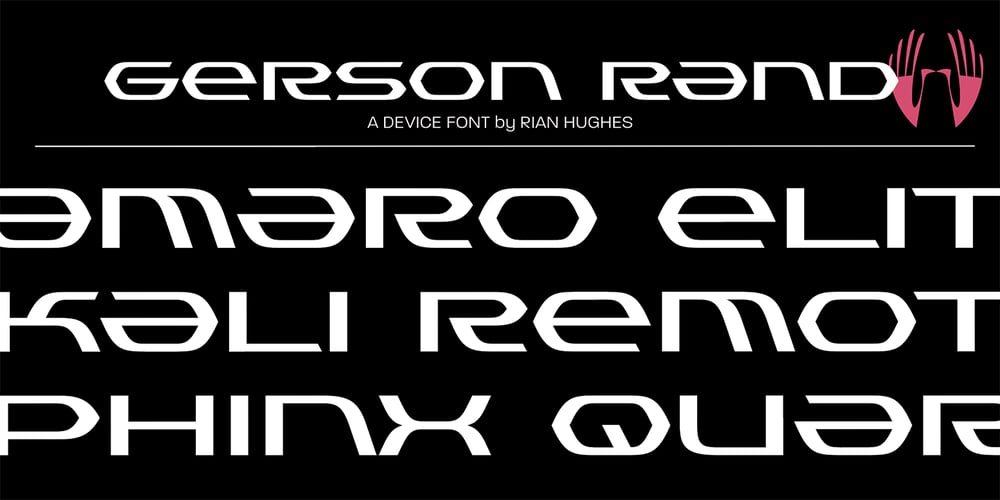
Gerson Rand
Gerson Rand font
Gerson Rand Font Family was designed by Rian Hughes and published by Device. Gerson Rand contains 1 styles and family package options. A sharp, corporate font with a clean, modern machine-aesthetic. Suitable for forward-looking company brochure headlines, contemporary and futuristic movie posters, logos and more. Incorporates a full international character set and alternate designs for many letters.